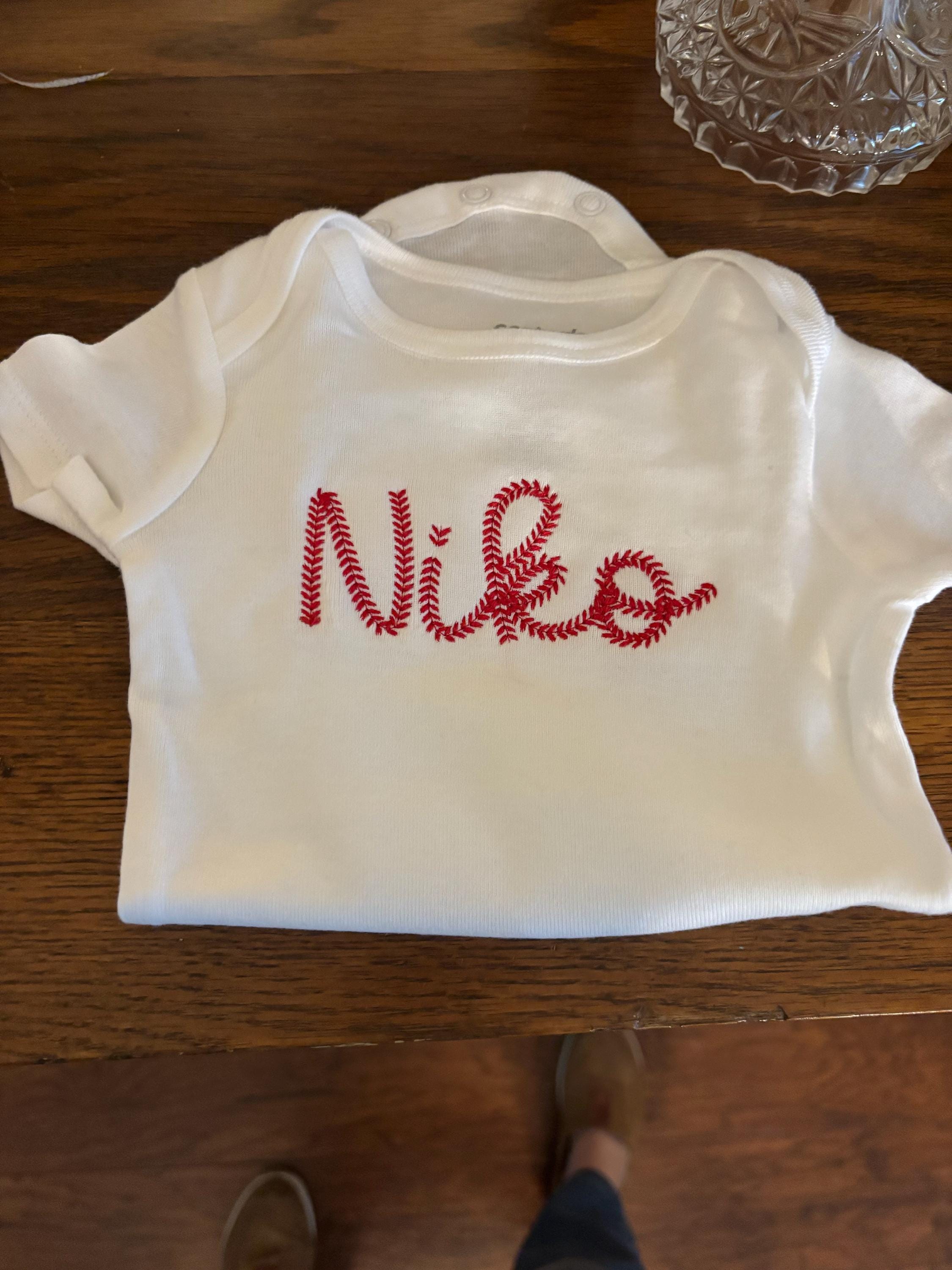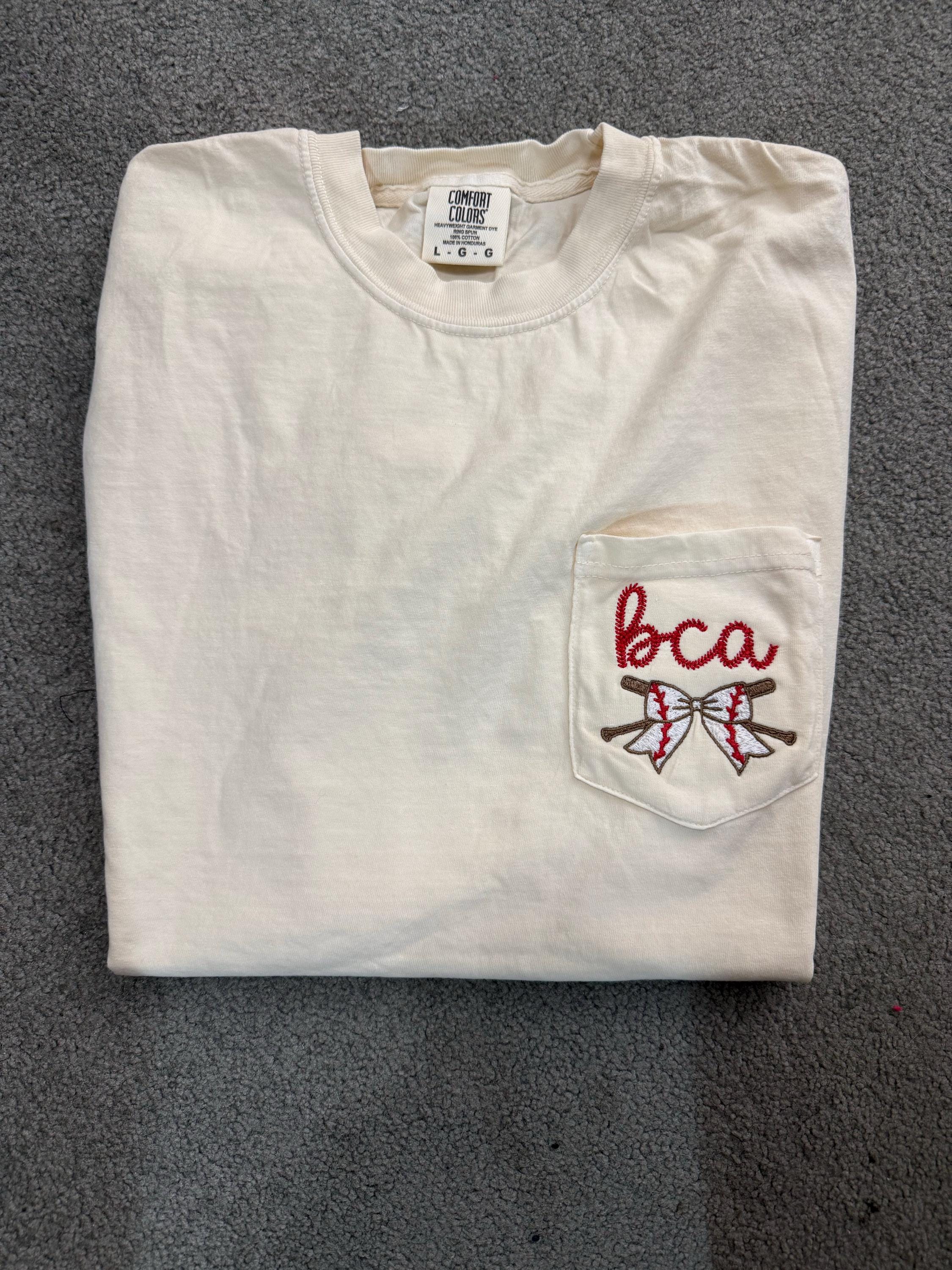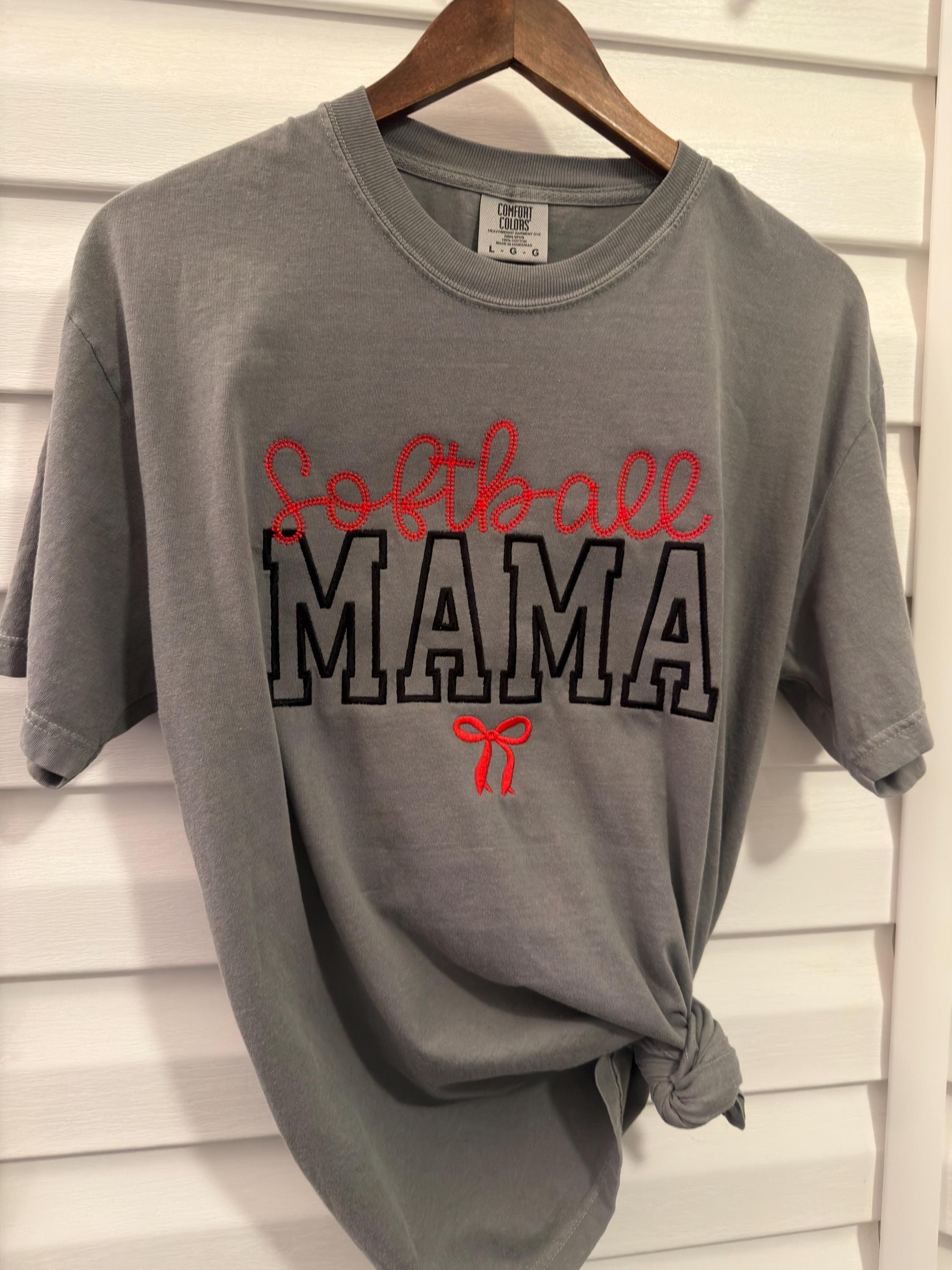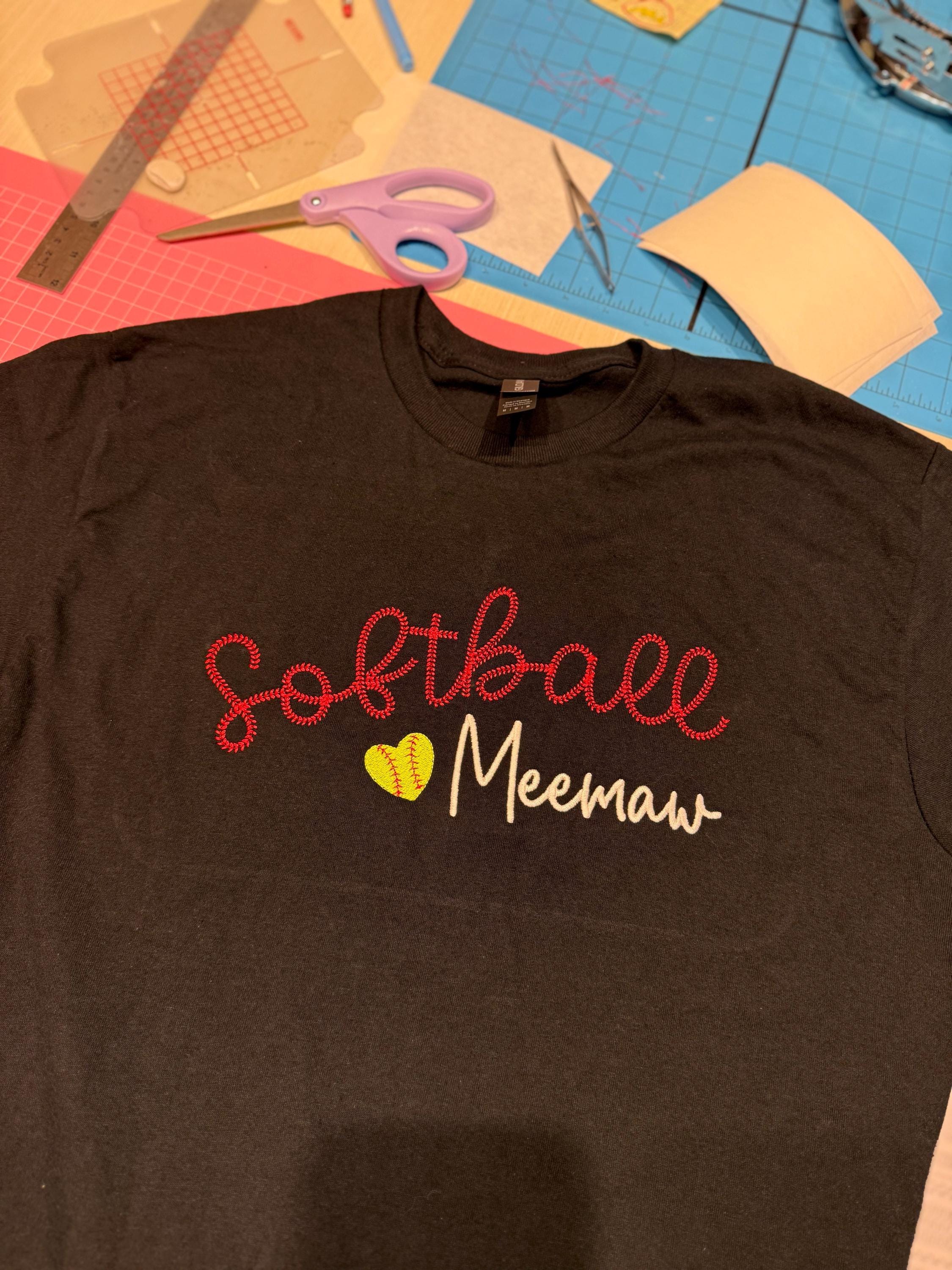
Sports Baseball Stitch Hanwritten Font
Bring your love for baseball to every project!
About This Design
The Baseball Stitch Handwritten Font embroidery design is the perfect choice for sports enthusiasts seeking a unique and playful text style. With its charming script, this font is ideal for baseball-themed projects including jerseys, caps, and personalized gifts. Utilizing this baseball font in your embroidery projects will add a fun touch, making it perfect for creating custom apparel or decorative items. Embrace the sports spirit with this versatile font that includes both uppercase and lowercase letters, providing all the flexibility needed for your designs.